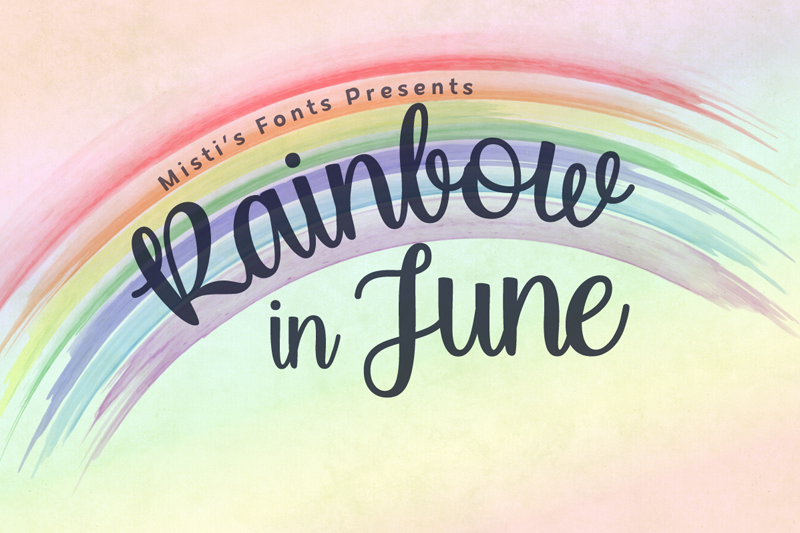
Preview and download Rainbow in June Font. Created by Misti's Fonts in Script Various styles with Free for personal use license.
Font name: | Rainbow in June |
Rainbow in June is an adorable and cursive script typeface. It would be an amazing fit for cute greeting cards, blog post graphics, shop logos and any project that needs a special personalized touch. Terms of Use and Commercial Licensing: https://mistifonts.com/rainbow-in-june/ |